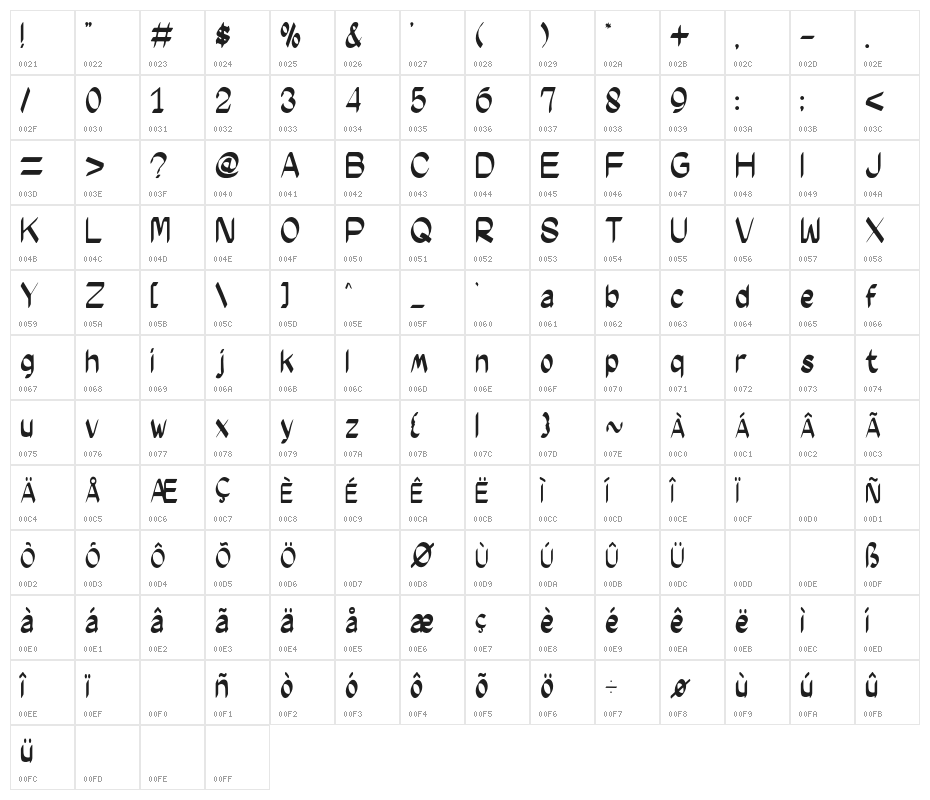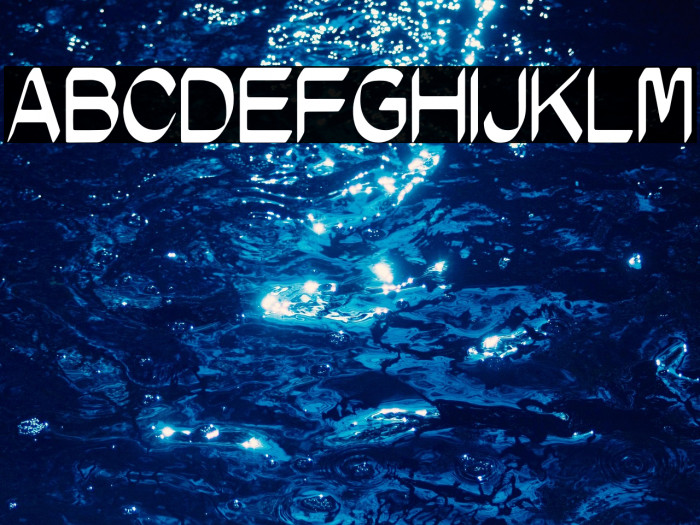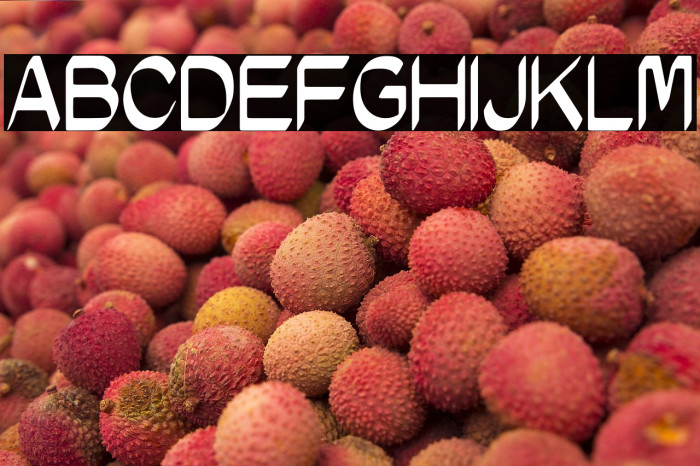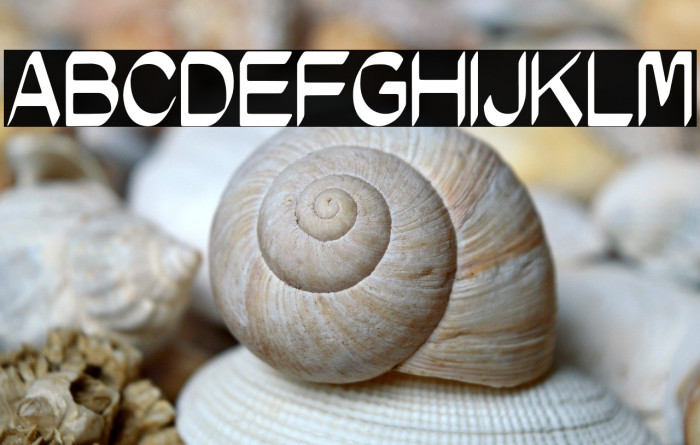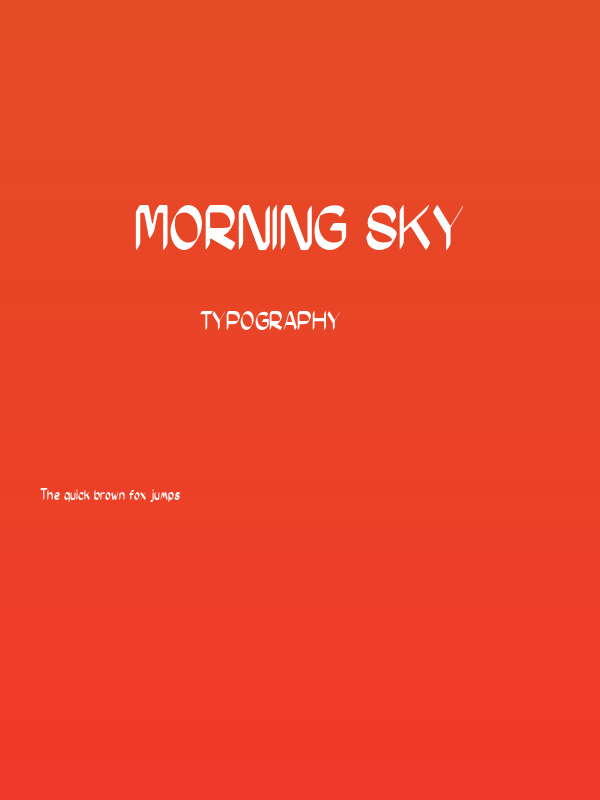
Morning Sky Font
Morning Sky Description
This font features a bold and dynamic style with a modern twist. The characters are slightly slanted, giving a sense of movement and energy. The uppercase letters are uniform in height, while the lowercase letters maintain a consistent baseline, adding to the font's readability. The numbers are clear and distinct, matching the overall style of the alphabet. Special characters are well-integrated, ensuring versatility in various applications. The font's design is both eye-catching and functional, making it suitable for a wide range of creative projects.